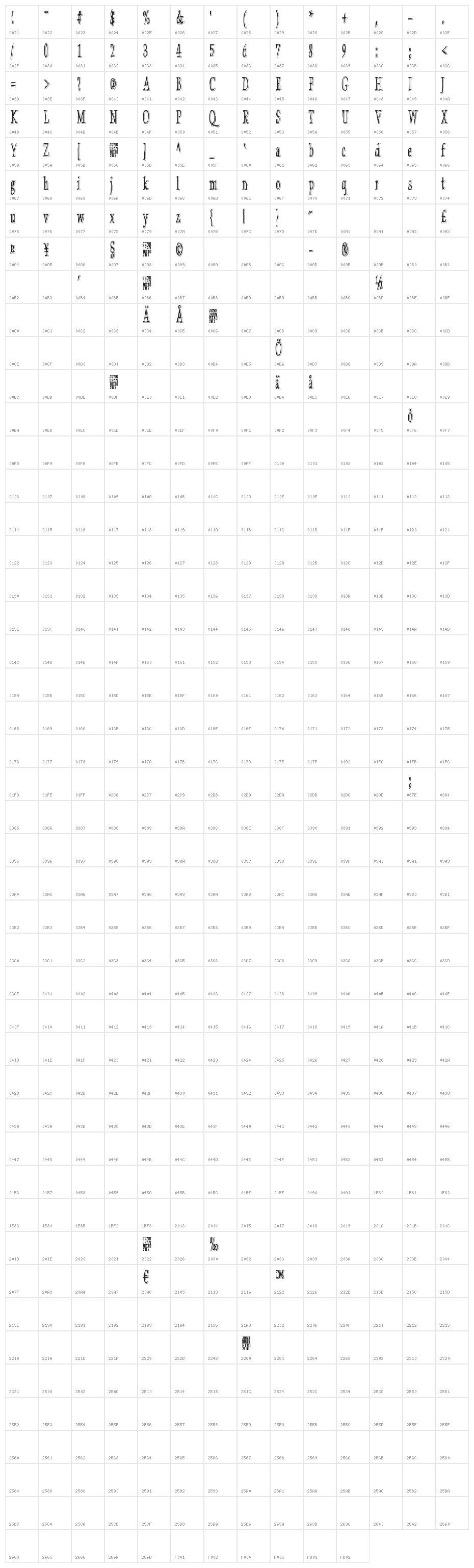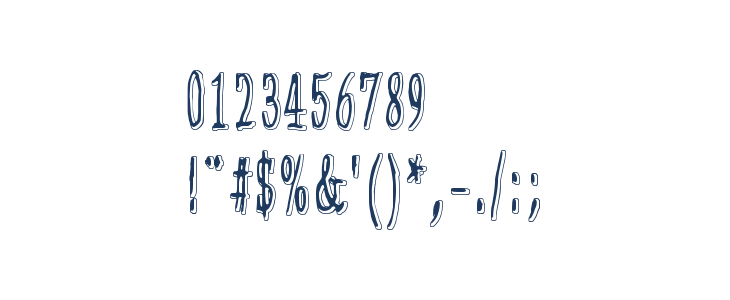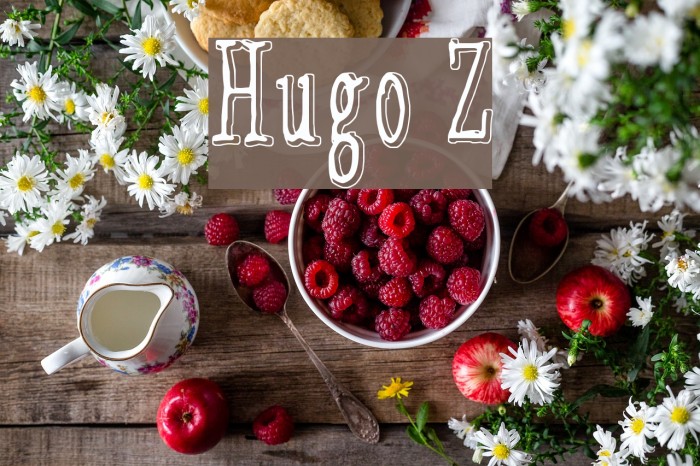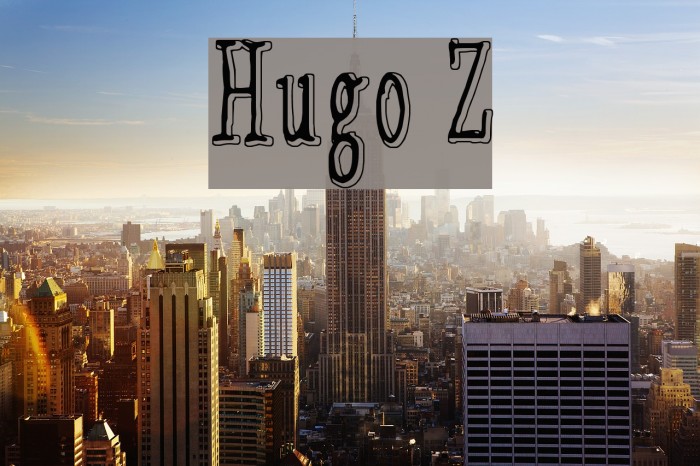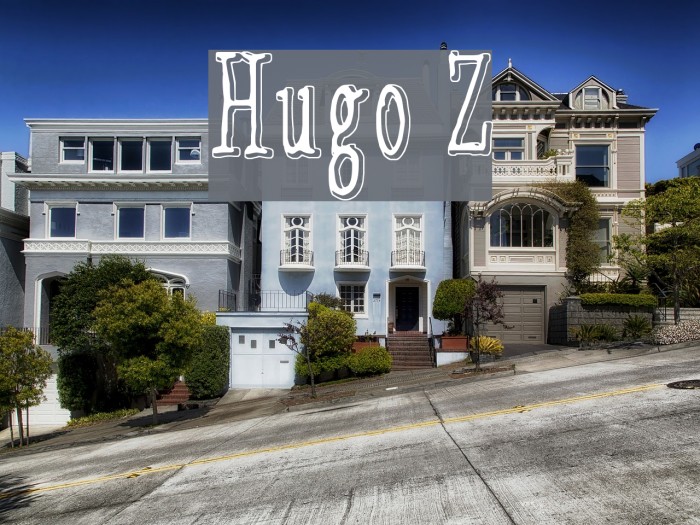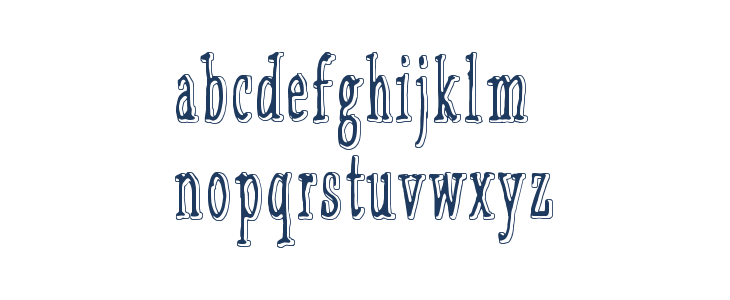
Hugo Z Font
Hugo Z Description
This font features a bold and playful design with a hand-drawn aesthetic. Each character is outlined with a thick, uneven stroke, giving it a whimsical and artistic feel. The letters have a slightly irregular shape, adding to the font's charm and uniqueness. The uppercase and lowercase letters maintain a consistent style, while the numbers and special characters complement the overall design. This font is ideal for projects that require a creative and informal touch, such as children's books, posters, or playful branding.
HUGO-Z UPPERCASE
HUGO-Z LOWERCASE
HUGO-Z OTHER CHARS
| Overall Style | Playful, Artistic, Whimsical |
| Proposed Projects | Children's books, posters, playful branding, creative invitations. |